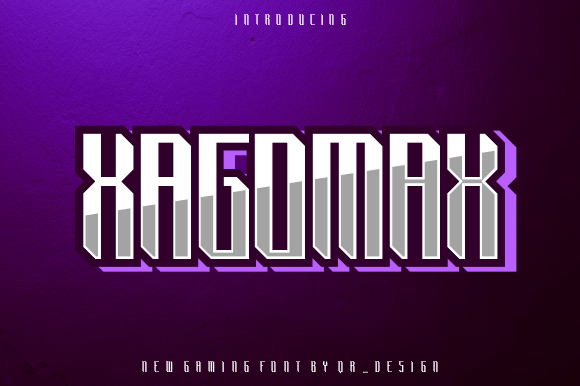
Embark on a Typographic Odyssey with Xagomax Font: The Quintessential Tech Font
At the vanguard of cutting-edge design, Xagomax Font stands as a beacon of innovation, beckoning tech-savvy visionaries to embrace the future of typography. This sans serif masterpiece, meticulously crafted by qrdesignstd, embodies the essence of modernity, propelling your brand identity to unprecedented heights.
Unleash a World of Possibilities with Xagomax Font, the Ultimate Tech Companion
Xagomax Font is not merely a collection of glyphs; it is a gateway to a world of limitless possibilities. Its bold and authentic strokes exude an air of authority, perfectly capturing the dynamic spirit of the tech industry. Whether you seek to establish a commanding logo, create eye-catching t-shirts, or elevate your esports presence, Xagomax Font has you covered.
Immerse Yourself in a Symphony of Versatility
Xagomax Font's versatility is a symphony of adaptability, effortlessly harmonizing with a kaleidoscope of creative endeavors. Its unwavering presence enhances posters, brochures, and website designs, adding an unmistakable touch of sophistication to your marketing materials. Unleash your imagination and witness the transformative power of Xagomax Font as it elevates your designs to new realms of excellence.
Illuminate Your Brand with Xagomax Font, the Guiding Light of Tech Typography
In a world saturated with mediocrity, Xagomax Font emerges as a beacon of distinction, illuminating your brand with an aura of innovation and dynamism. Its bold lines and sharp angles evoke a sense of forward-thinking, perfectly aligning with the progressive ethos of the tech industry. Embrace Xagomax Font and watch as your brand identity soars to new heights, leaving competitors trailing in its wake.
Forge an Unforgettable Connection with Xagomax Font, the Catalyst of Emotional Resonance
Xagomax Font is more than just a font; it is an emotional conduit, forging an unbreakable connection between your brand and your audience. Its bold and confident strokes resonate with the aspirations of tech enthusiasts, evoking a sense of empowerment and progress. Engage your audience on a deeper level, inspiring them to embrace the boundless possibilities of technology and innovation.